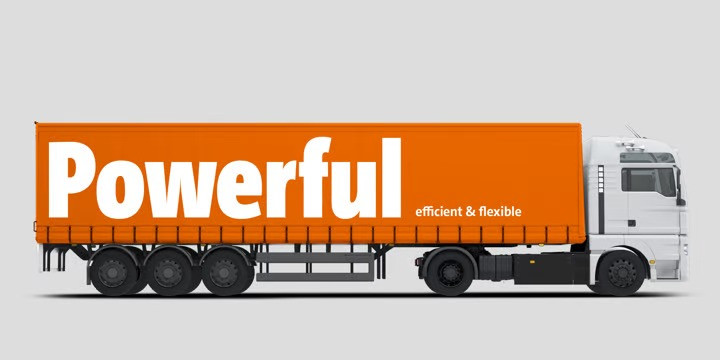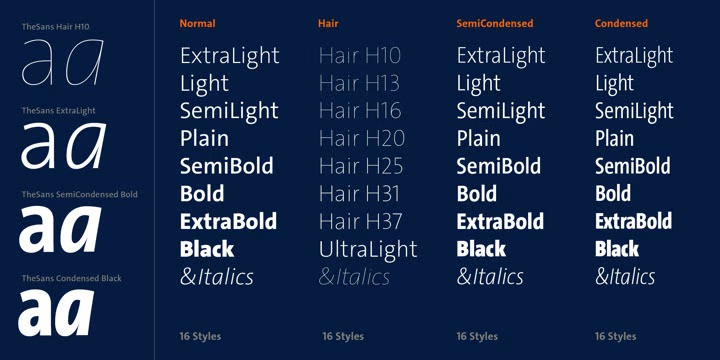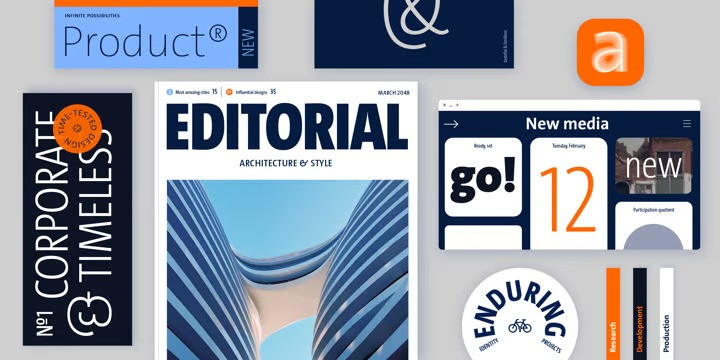
TheSans Font Family
TheSans Sans Serif Font is a sans serif OpenType font crafted & designed by LucasFonts. A favourite for corporate design, editorial design and new media, it comes in an astounding range of widths and weights, including a large set of hairline fonts.